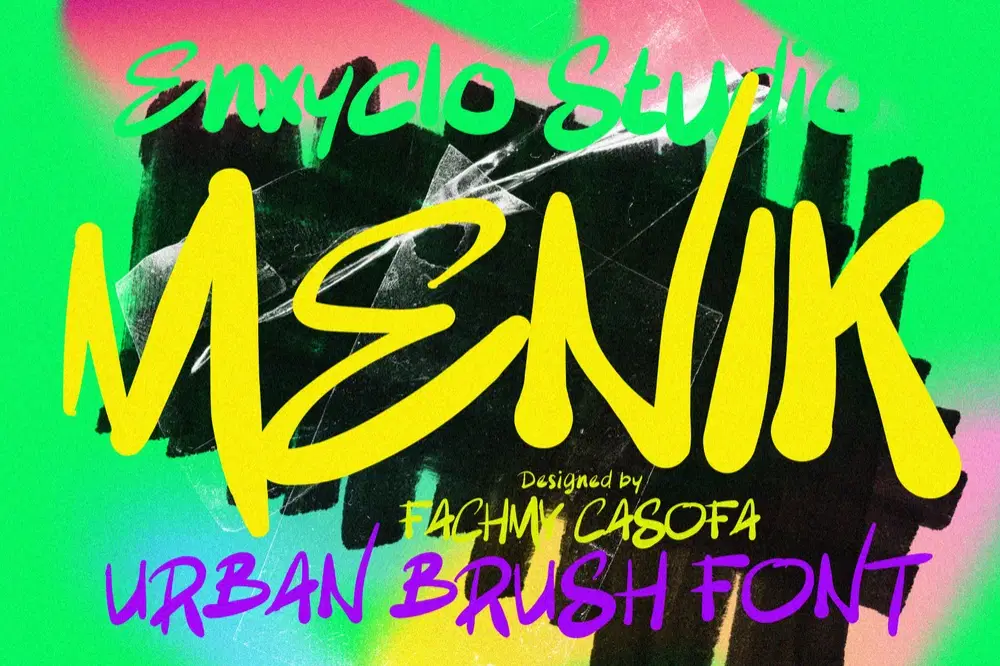
Menik is an expressive urban brush font bursting with vibrant energy and creative attitude. Designed with bold strokes and dynamic movement, it captures the raw spirit of street culture and the fearless personality of hand-painted lettering. Its lively textures and artistic flow make Menik perfect for projects that demand visual impact: bold, energetic, and unapologetically creative. Whether you’re working on branding for a creative agency, designing an urban poster, or crafting a high-energy headline, this font brings instant character and modern edge to your work. With its striking brush style and urban flair, Menik turns ordinary text into bold statements that stand out anywhere.
PERFECT FOR
- Urban and street-style branding
- Creative agency identities
- Music or festival posters
- Bold editorial headlines
- Social media campaigns
- Sports and lifestyle graphics
- Vibrant promotional ads
- Artistic portfolio layouts
- Trendy digital content and thumbnails